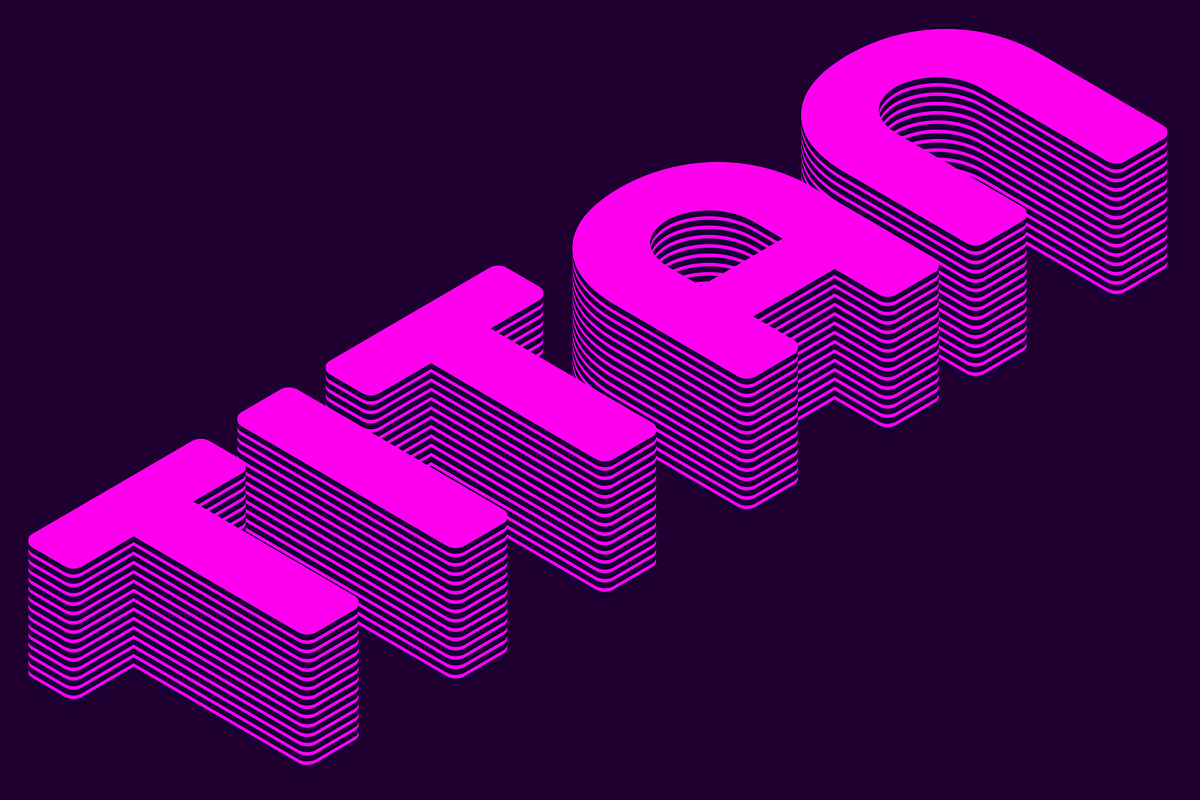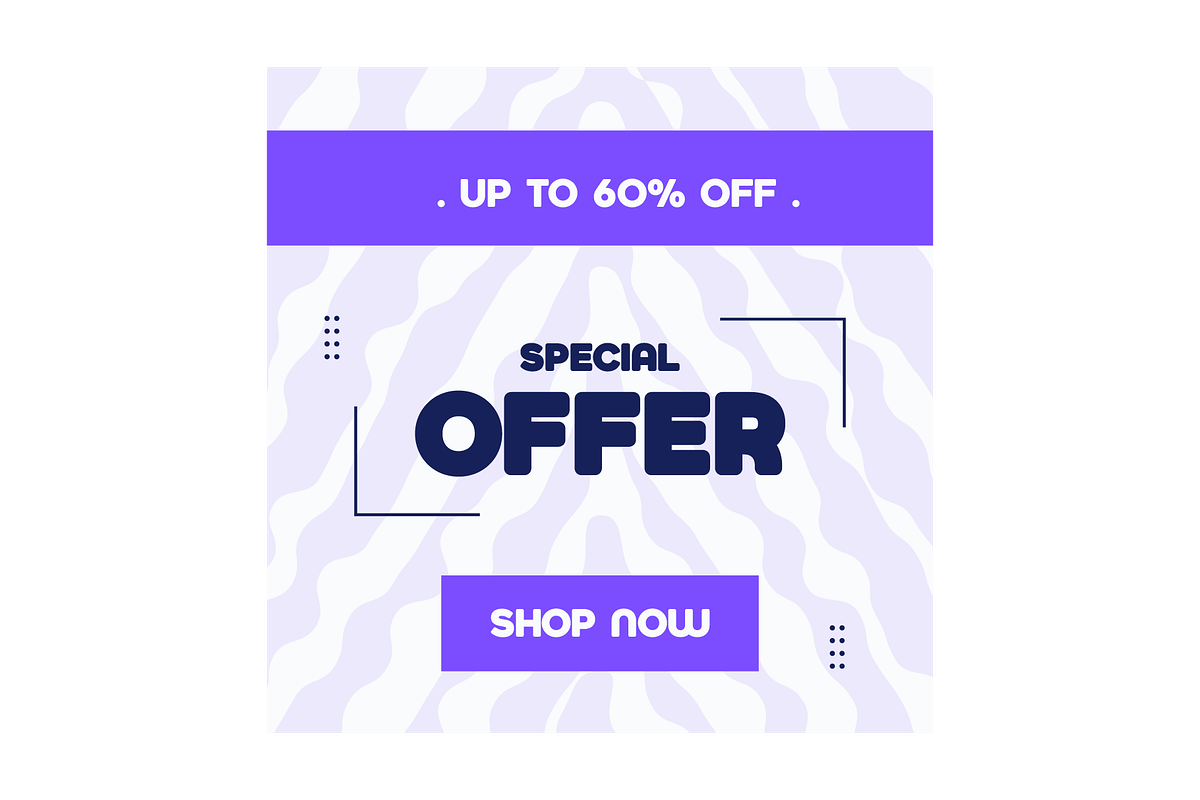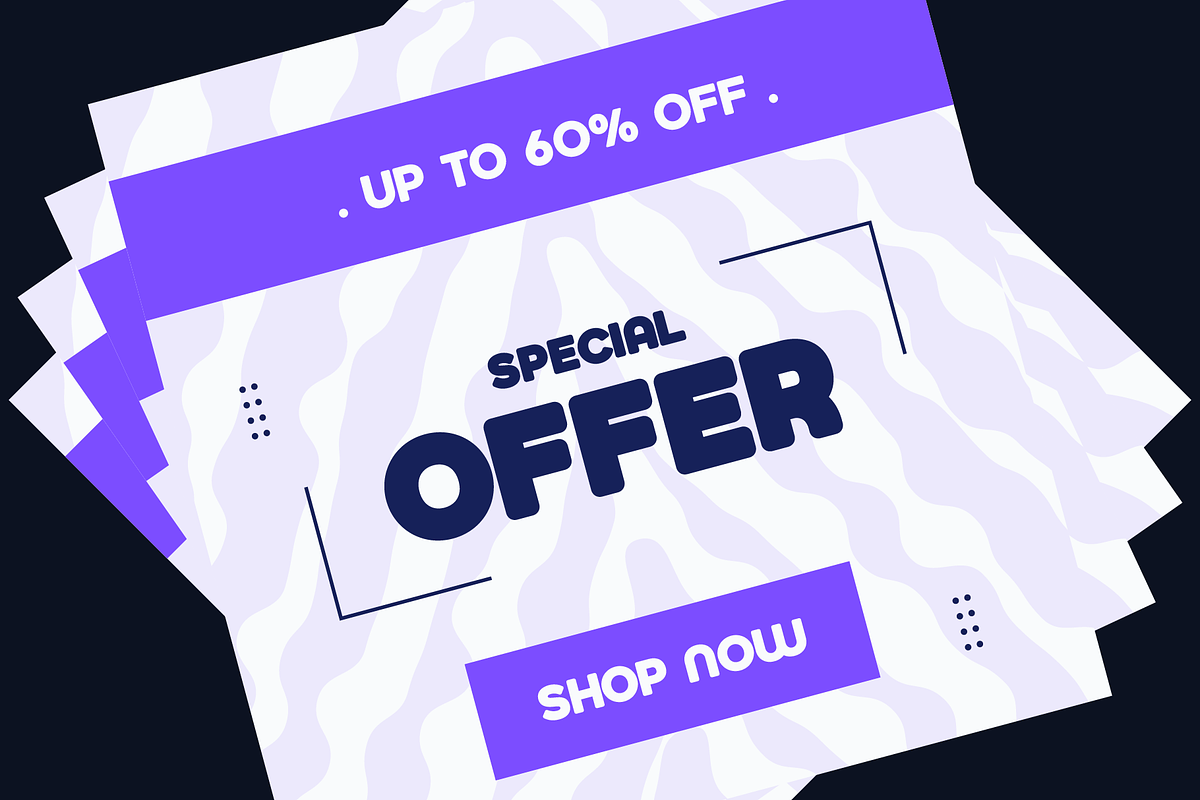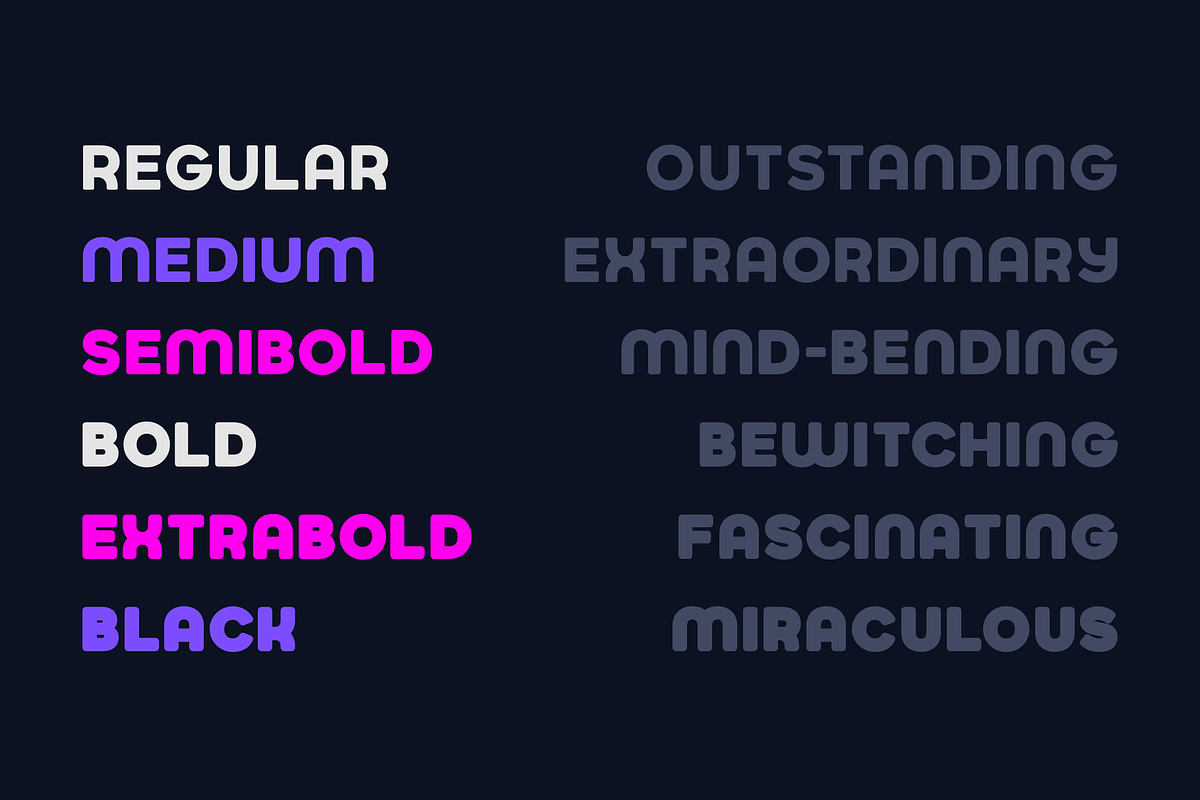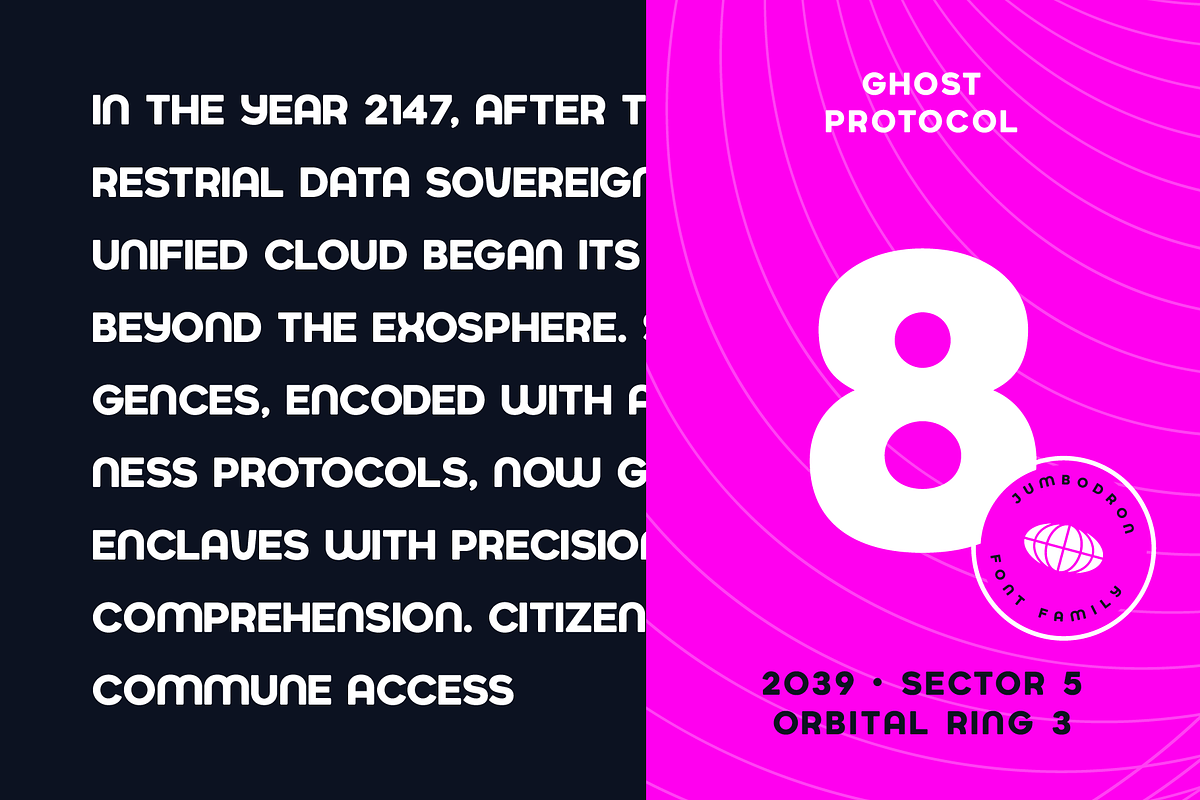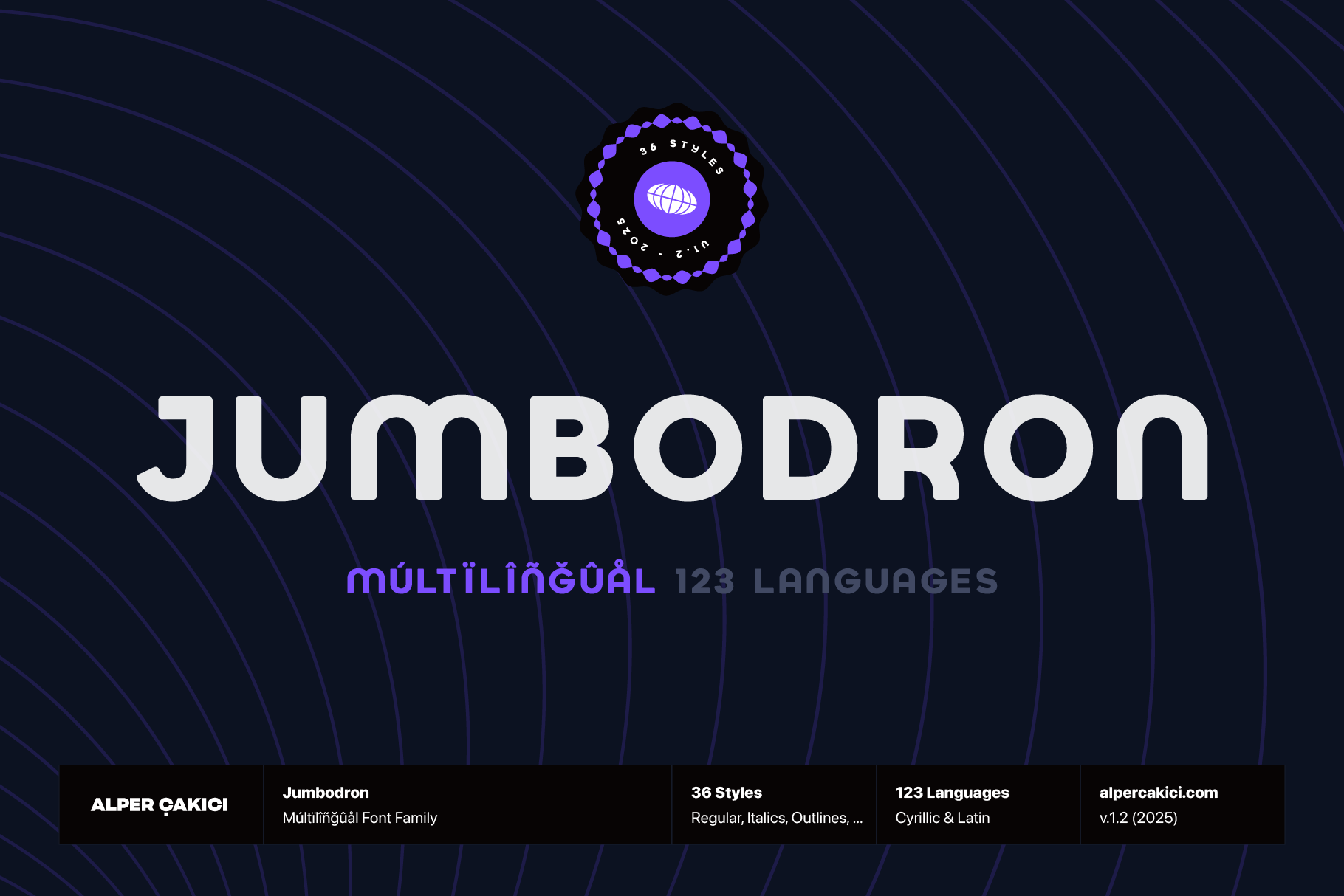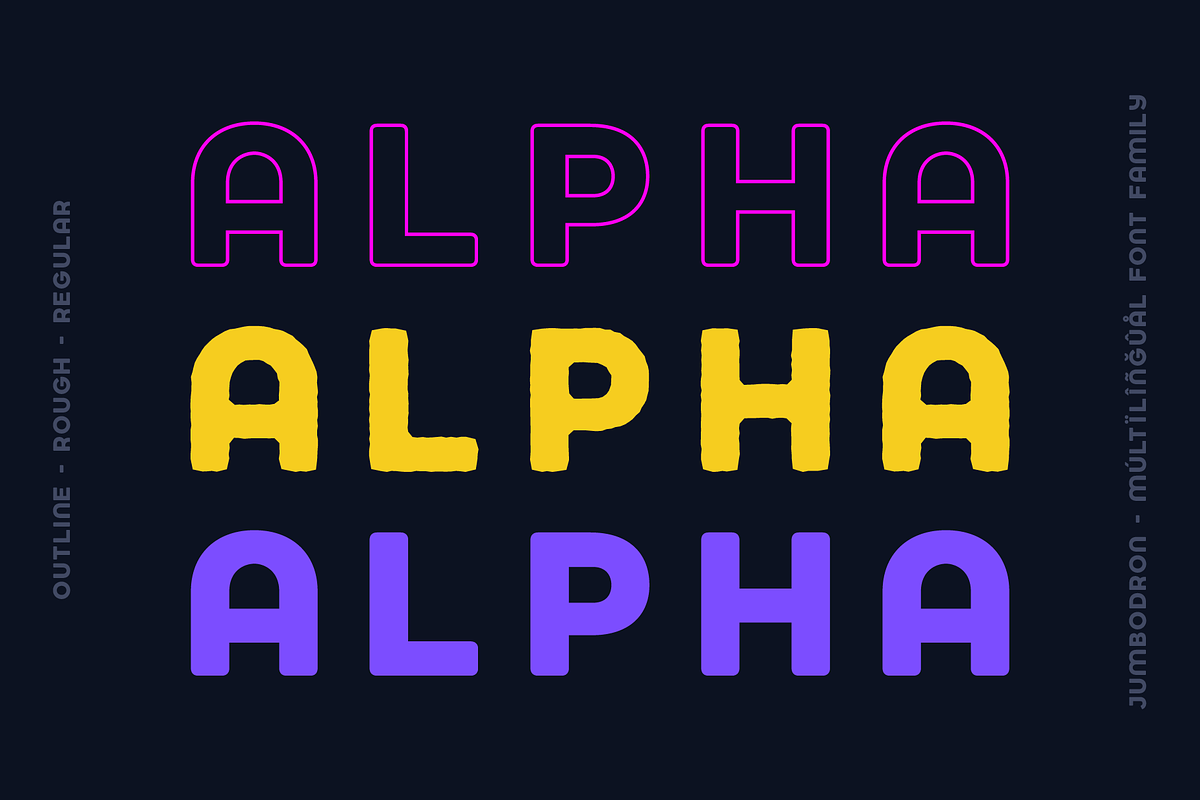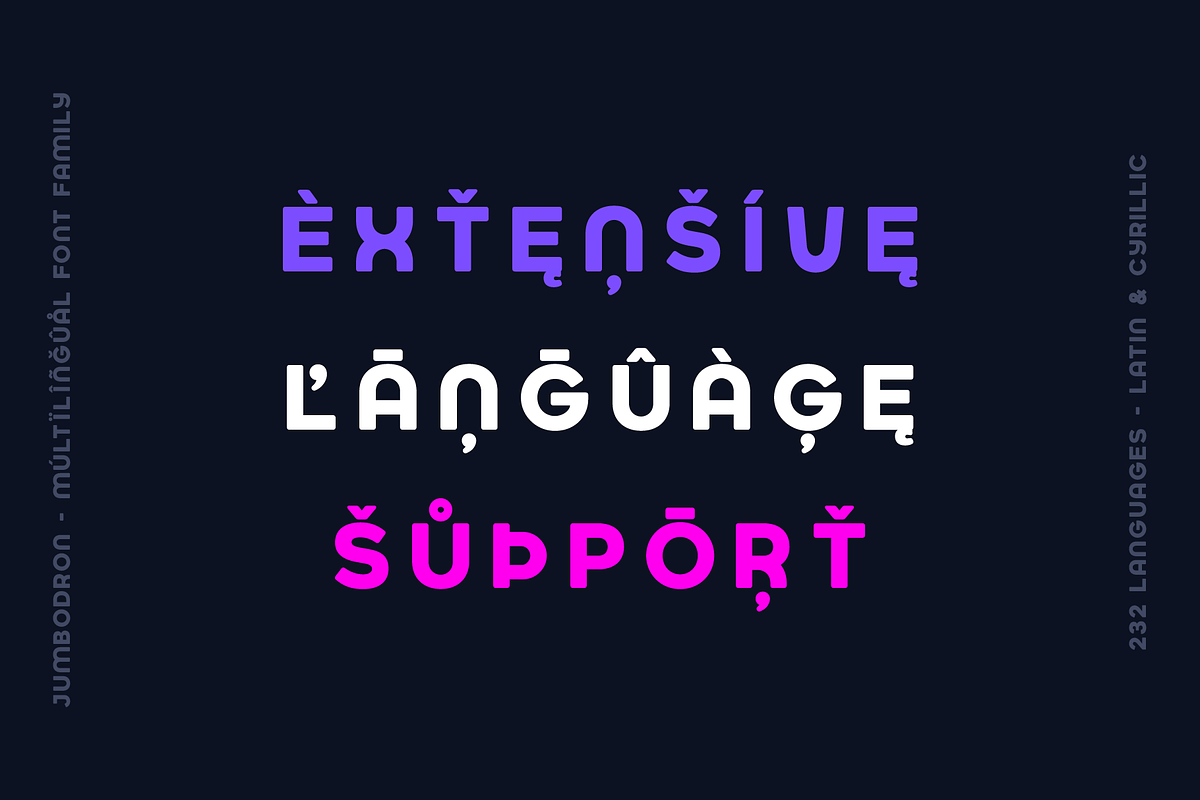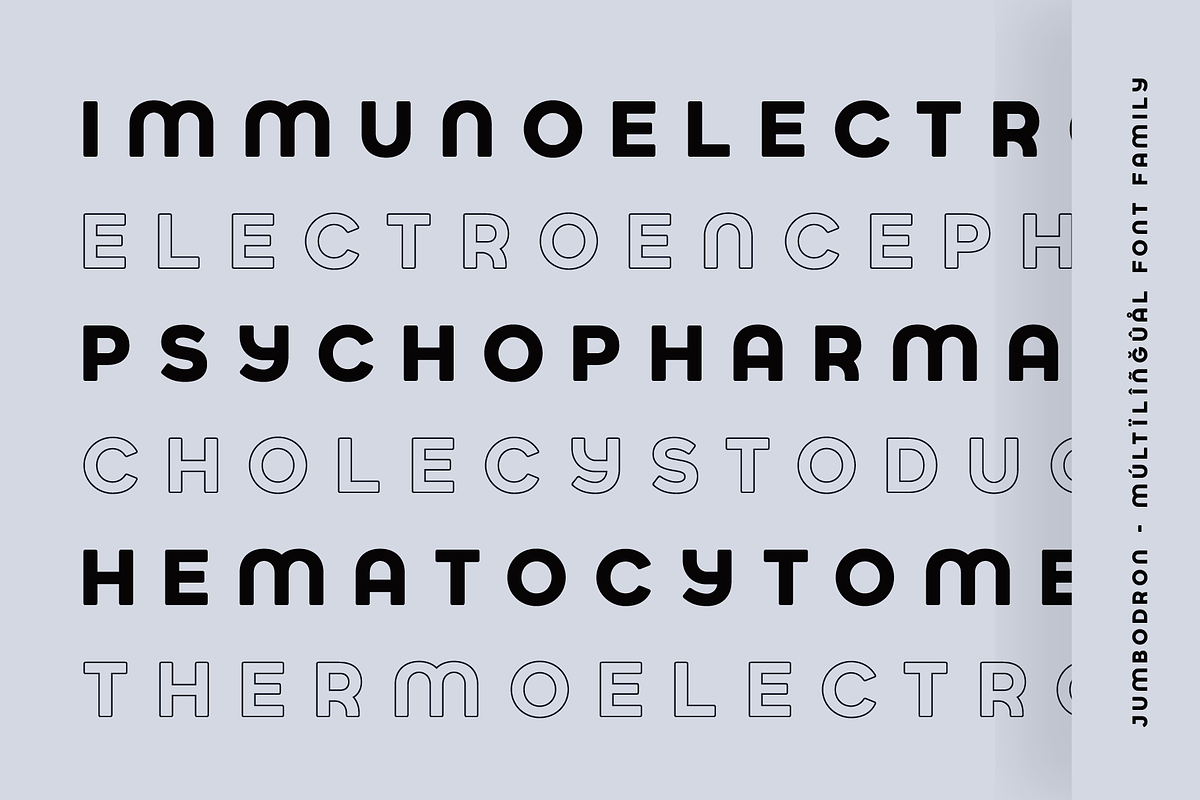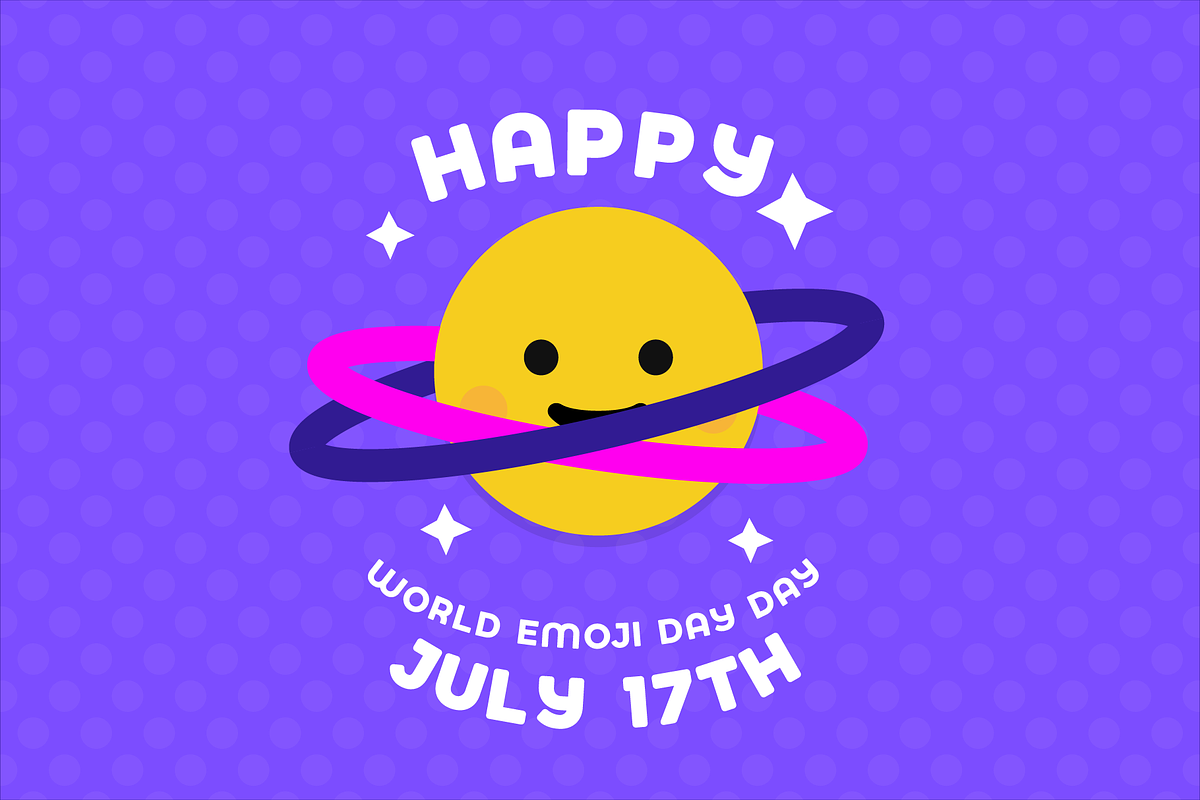
Jumbodron Font Family - 36 Fonts
Jumbodron is a modern geometric typeface defined by rounded corners, balanced proportions, and precise kerning.
Designed for versatility, it performs beautifully in both digital and print environments. With support for 123 languages, including full Cyrillic coverage, Jumbodron ensures seamless multilingual communication.
Available in 36 styles—from Regular to Black, with matching Italics and Outlines—this font offers exceptional flexibility for branding, editorial, and interface design. Jumbodron blends timeless structure with a contemporary edge, making it a standout choice for designers seeking clarity and character in one package.